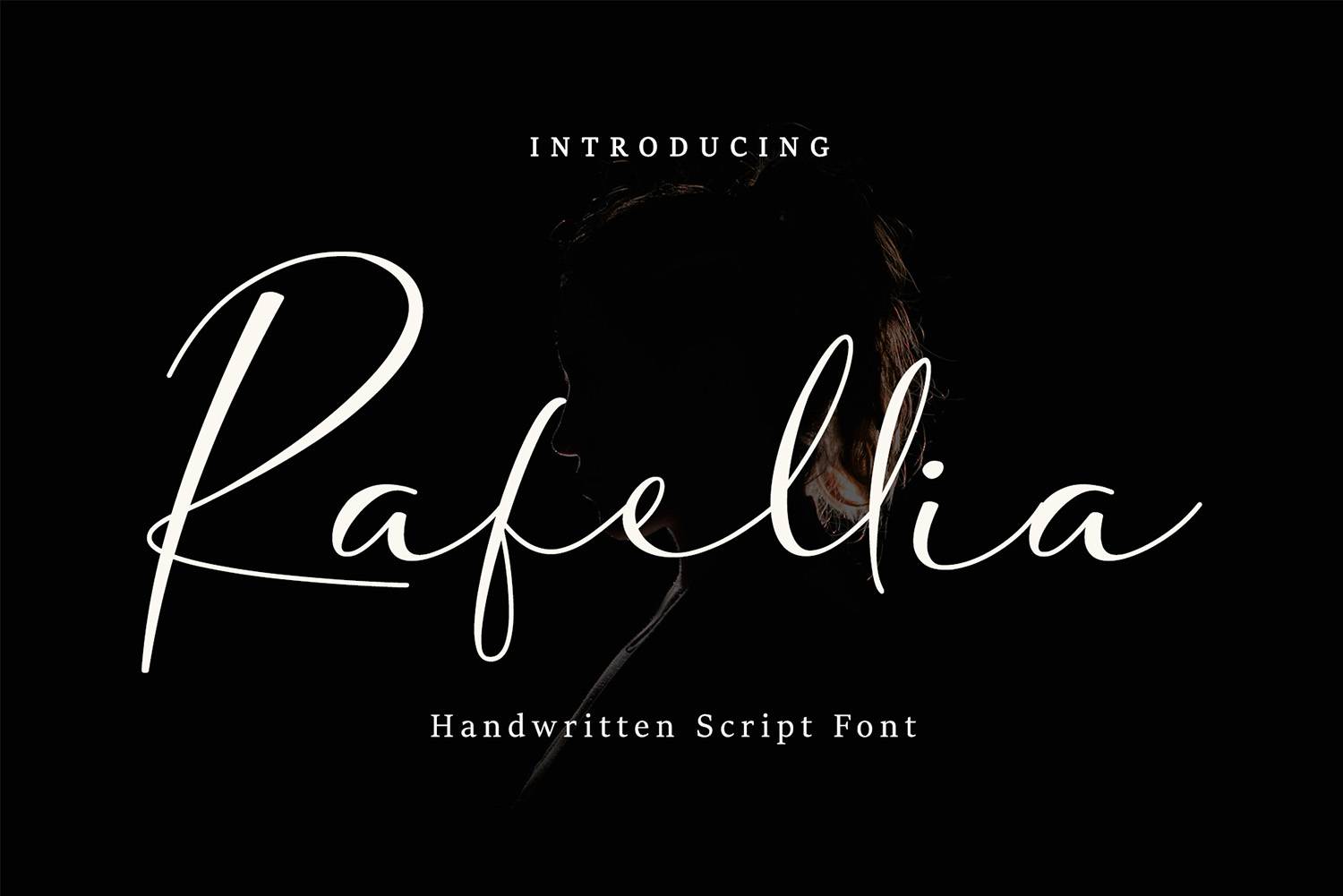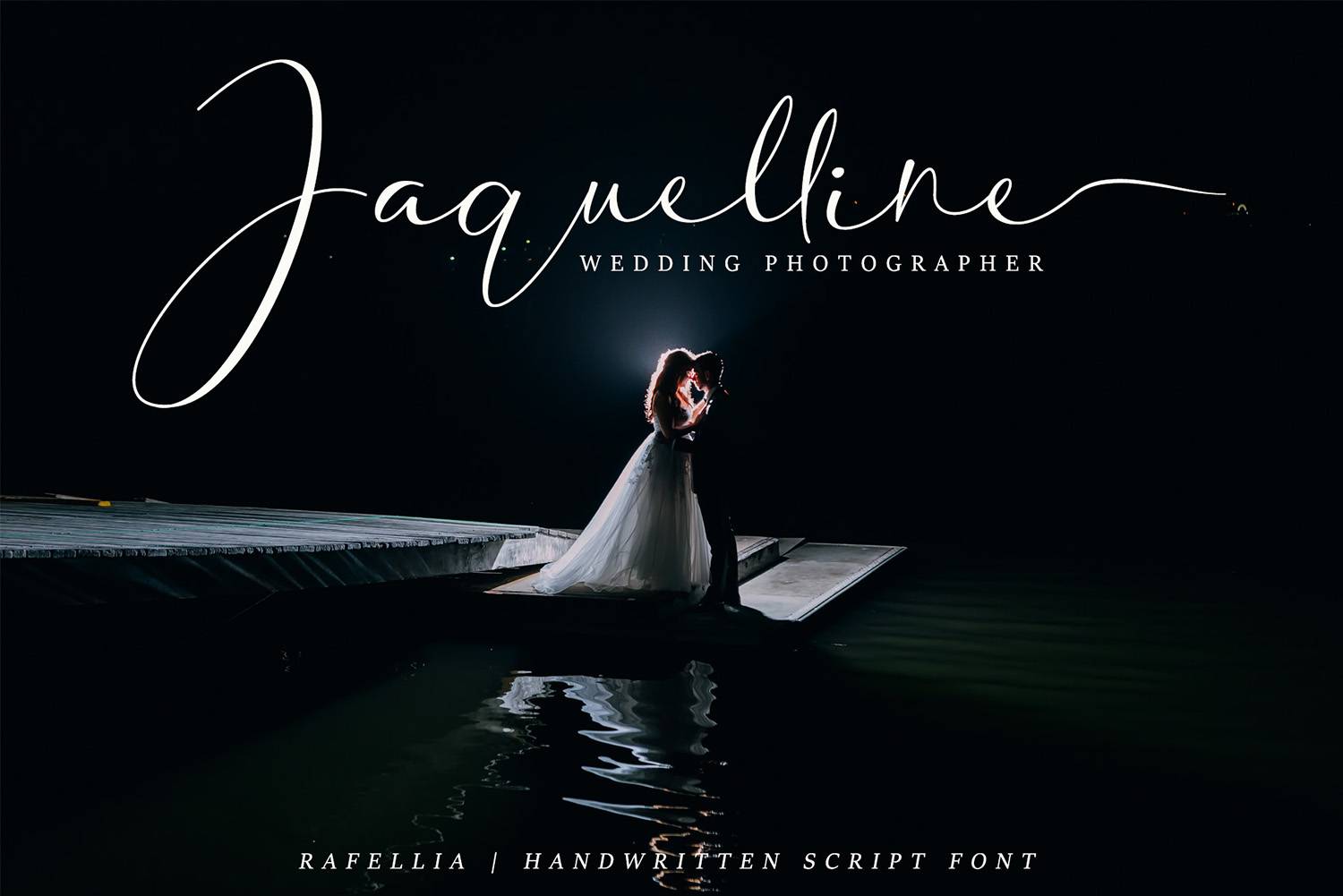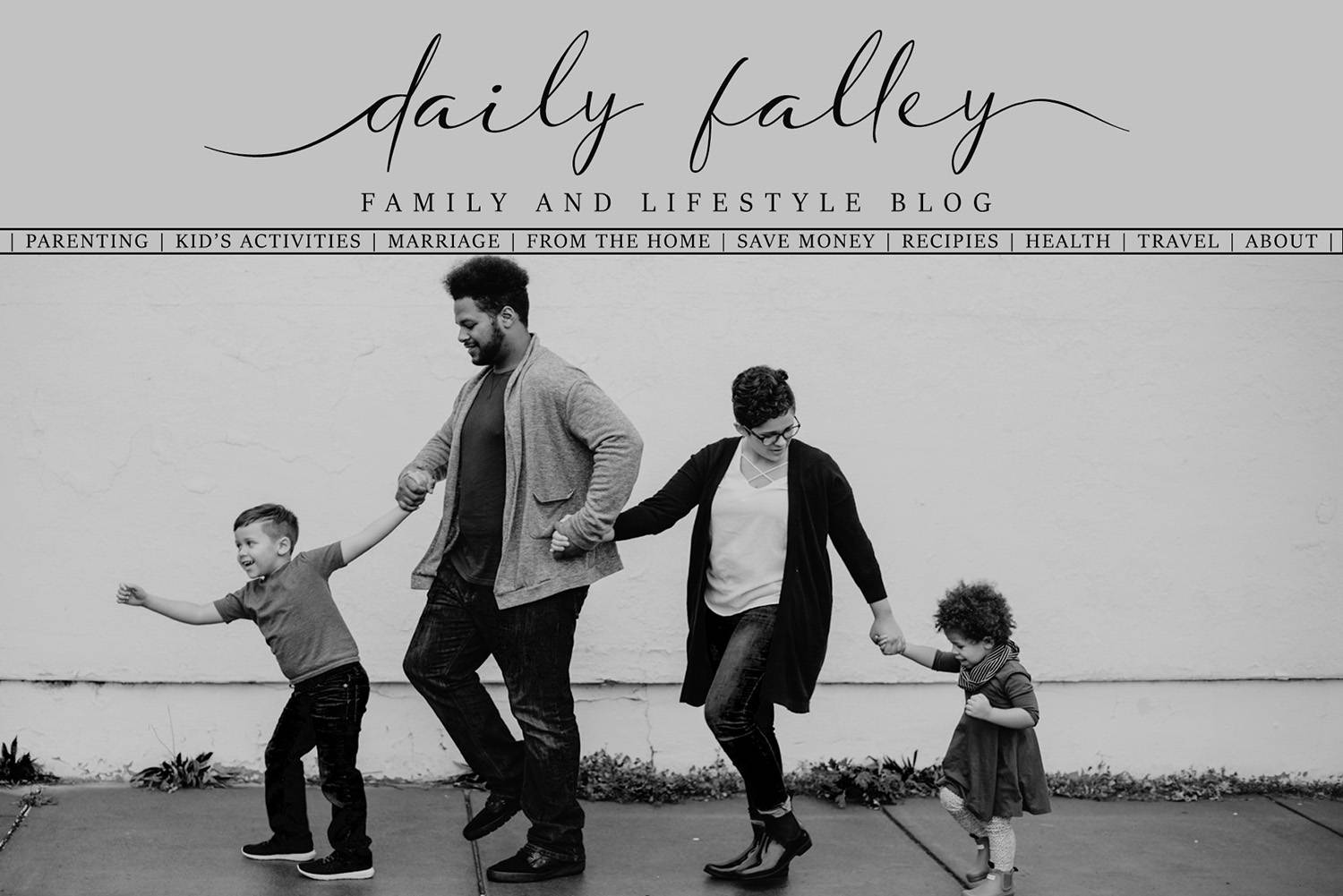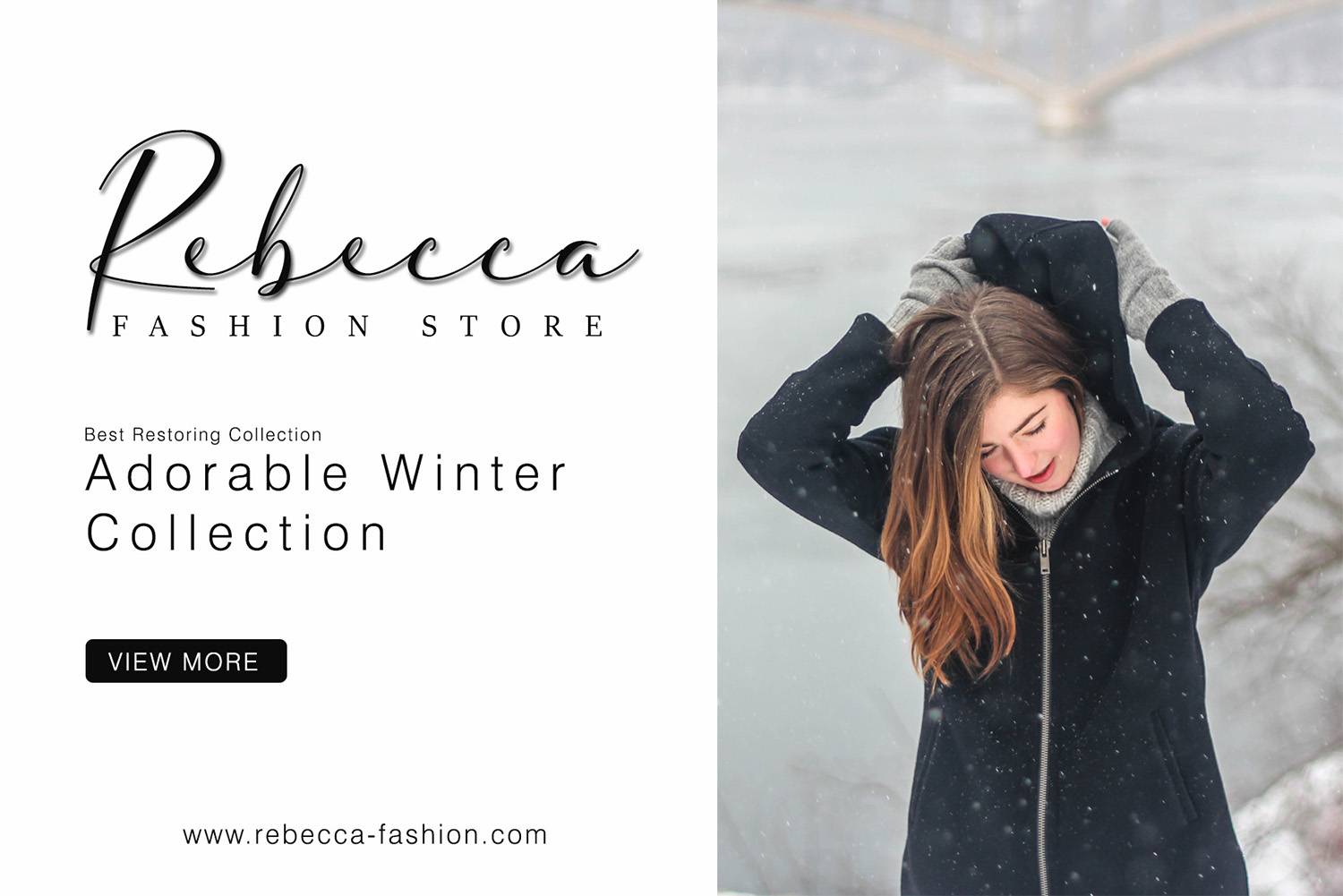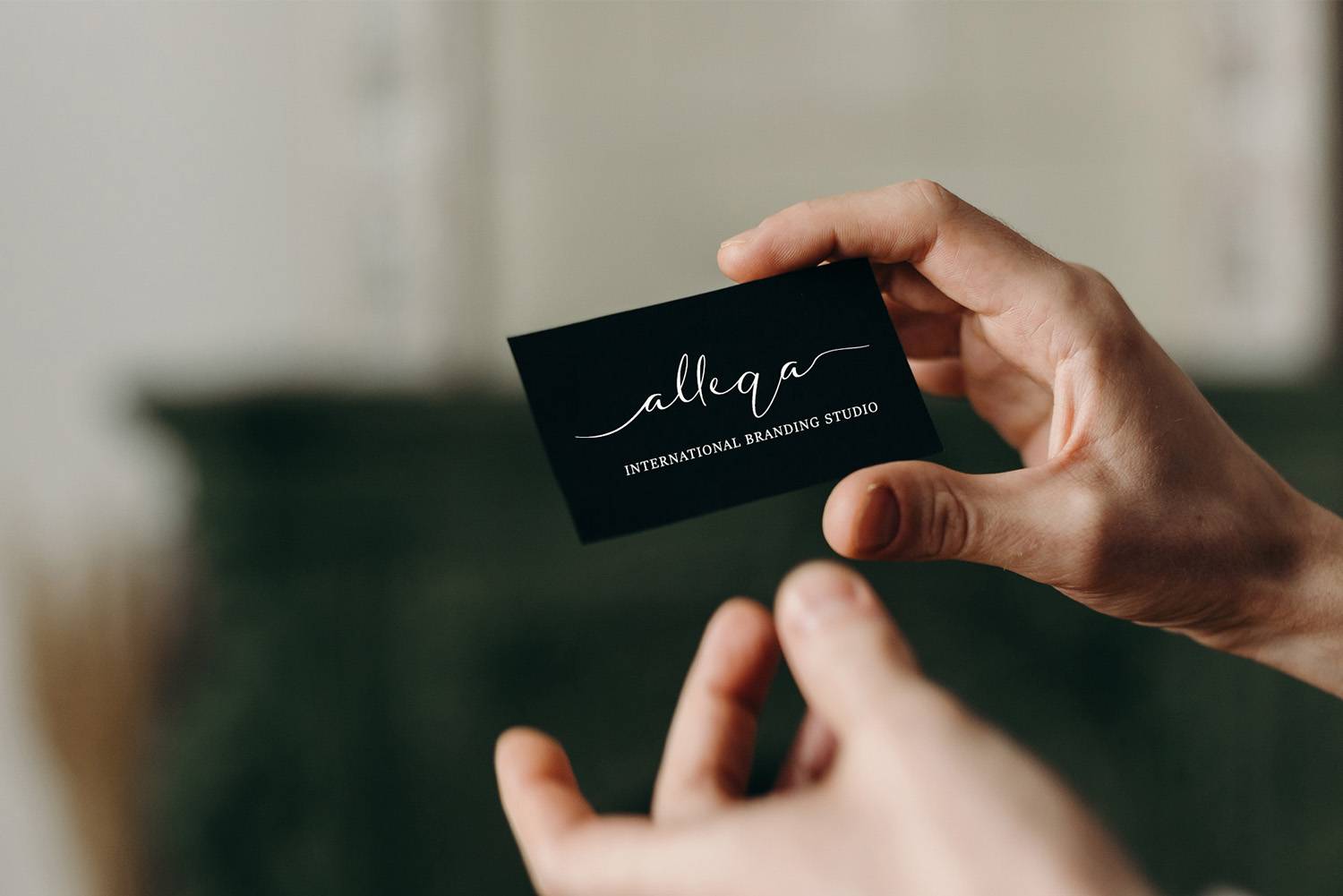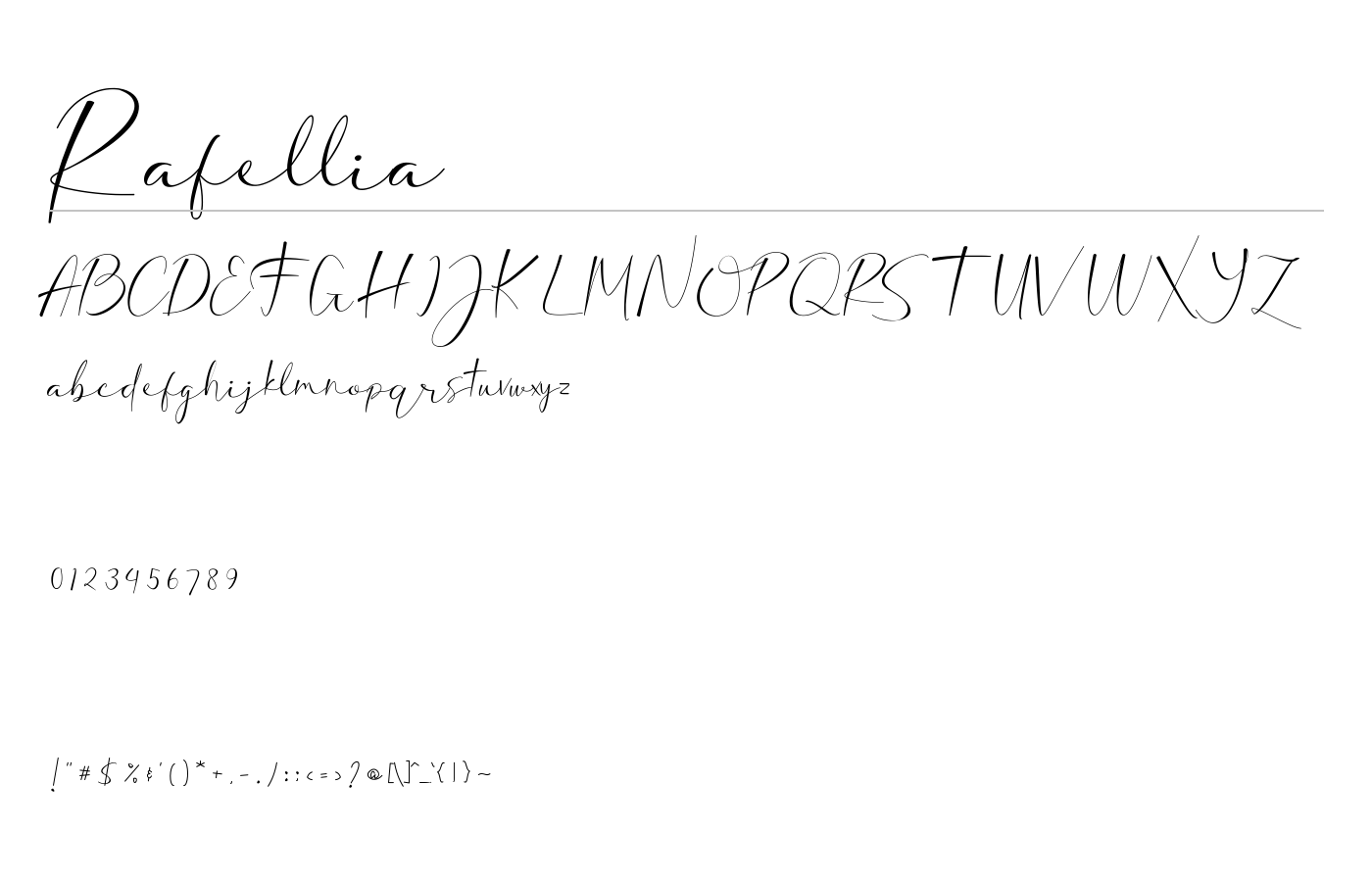
Rafellia is a delicate, elegant script font with thin, flowing strokes that give it a refined and graceful appearance. Its irregular yet stylish letterforms convey a sense of warmth and creativity, making it perfect for feminine branding, invitations, and artistic projects seeking a personal, handwritten touch. This font works best in headlines or decorative text where its airy, sophisticated style can truly stand out.
Rafellia Font
About Rafellia Font